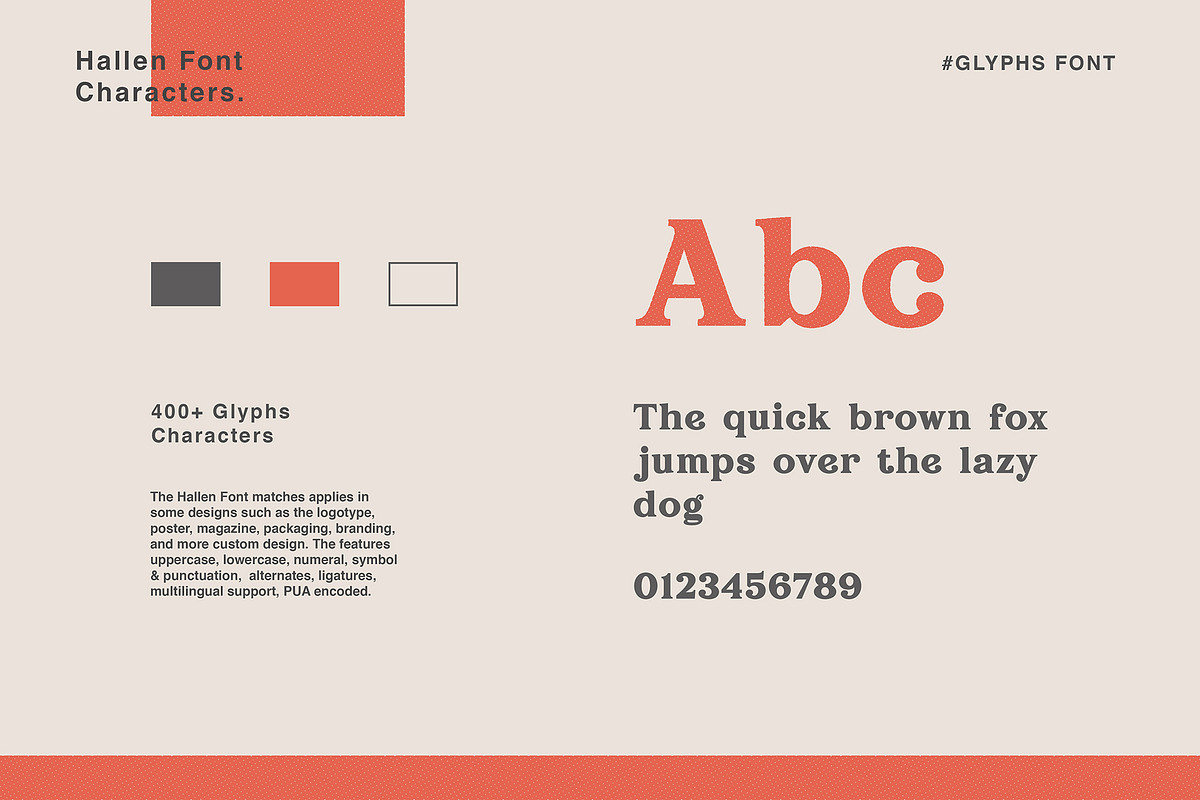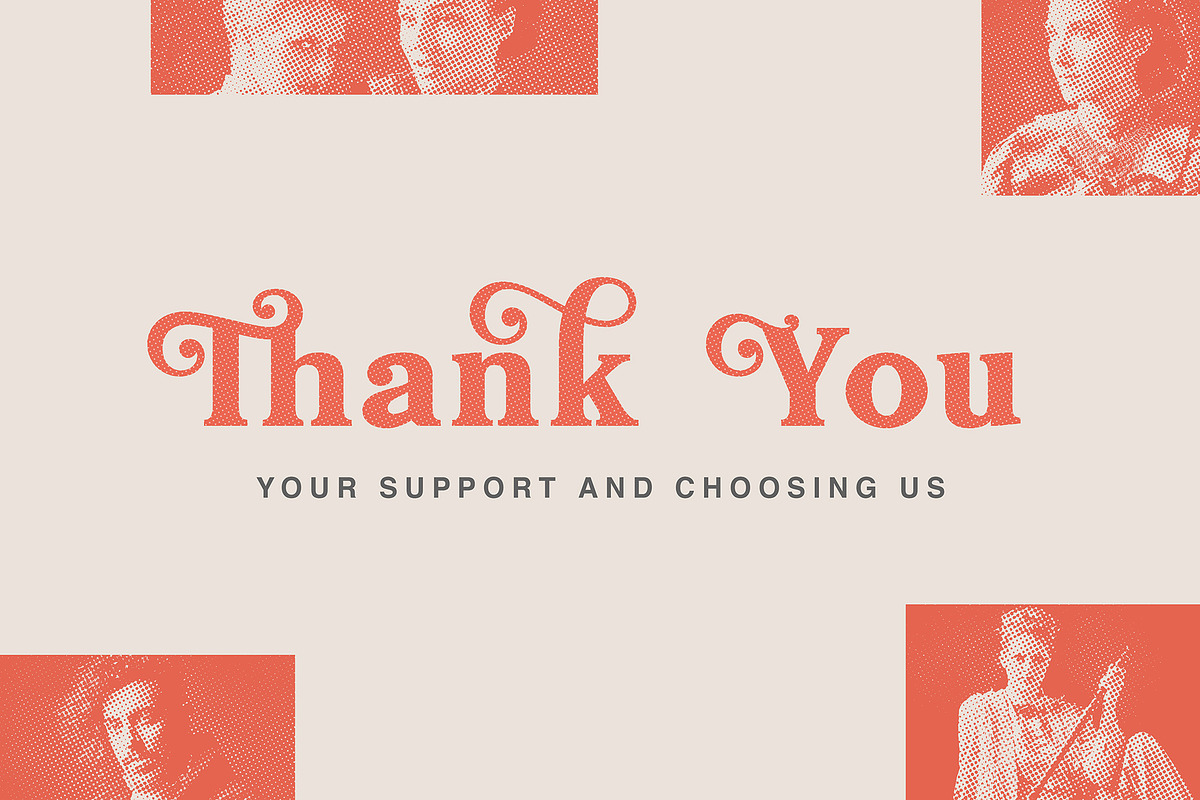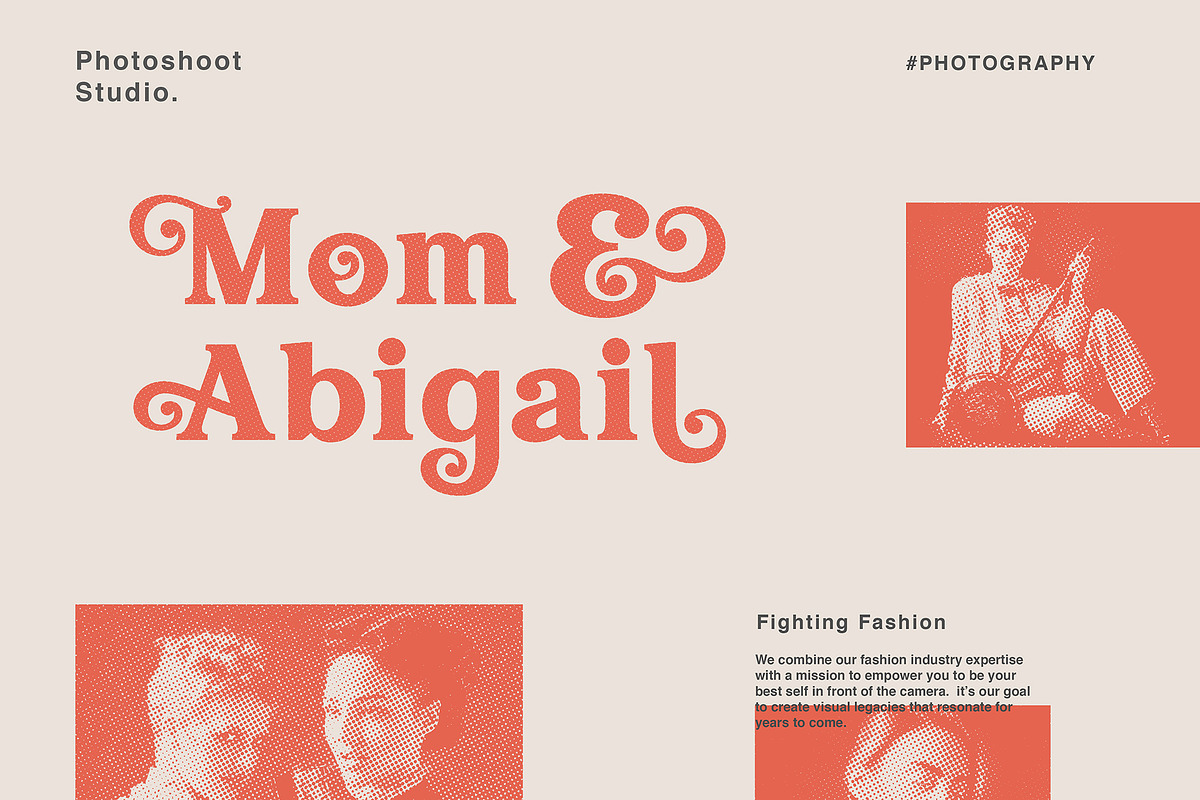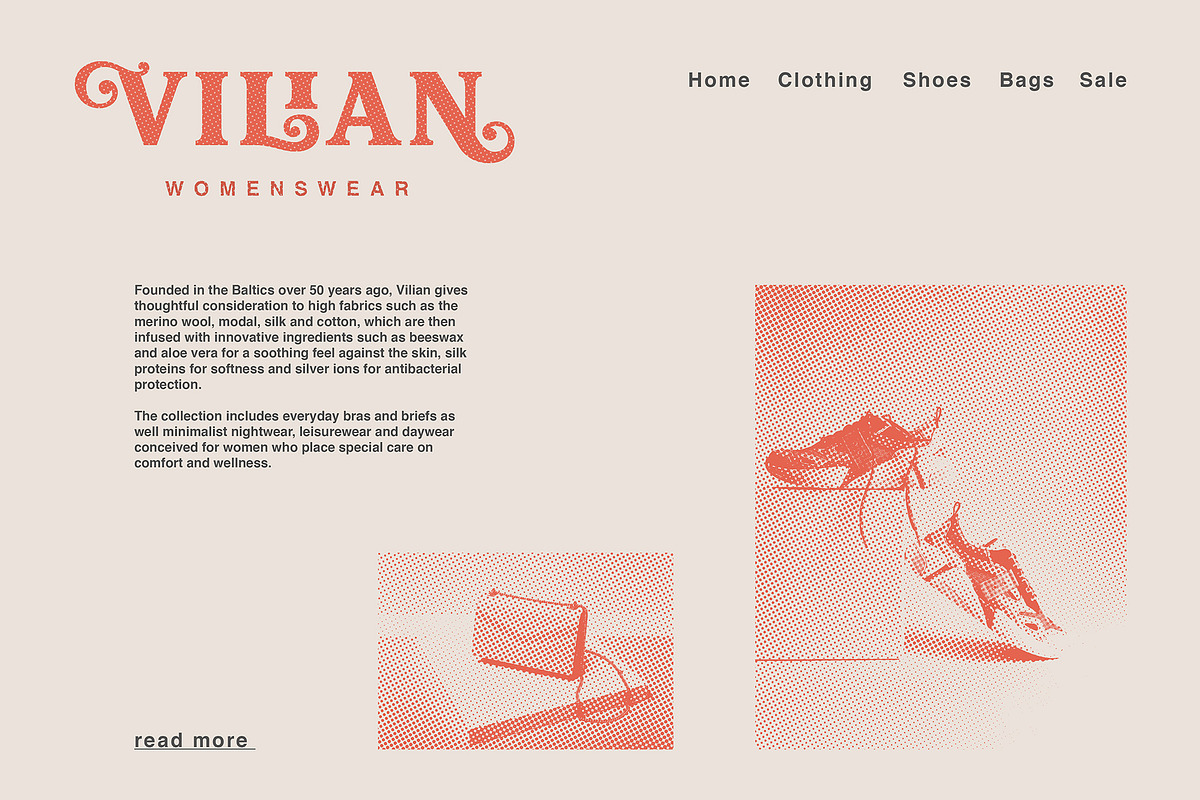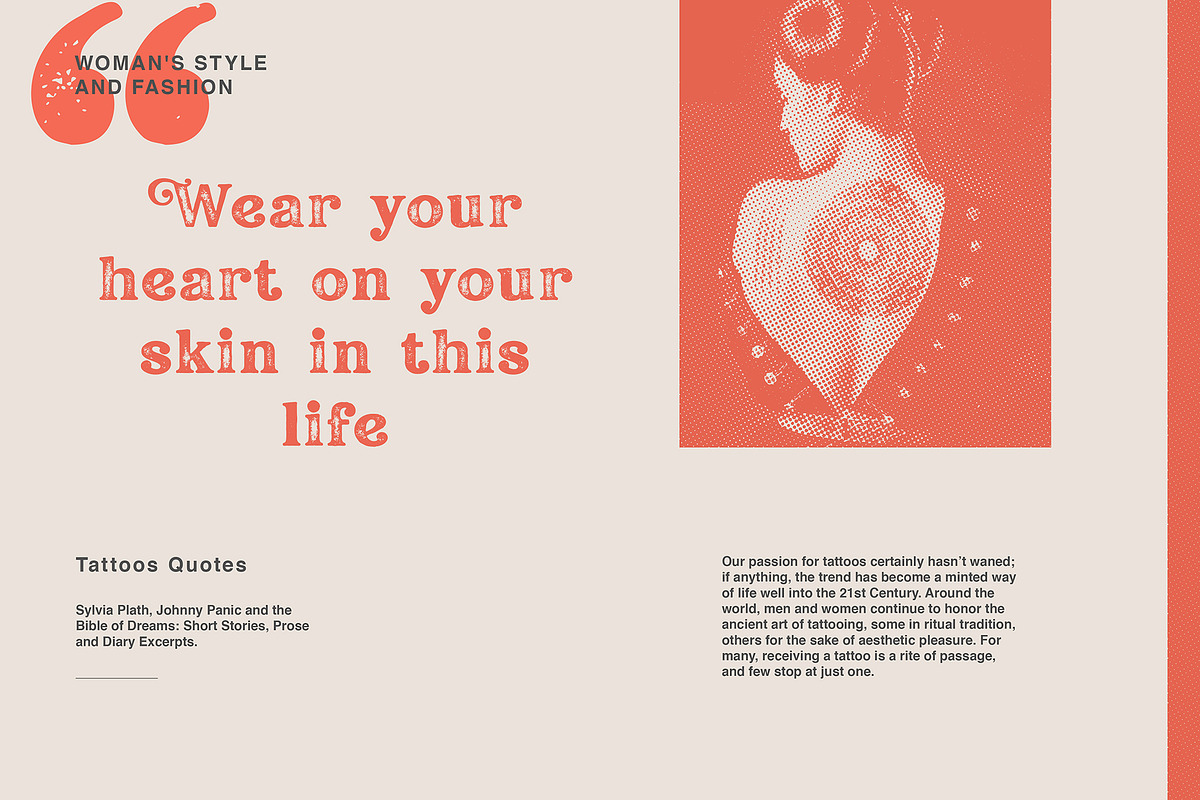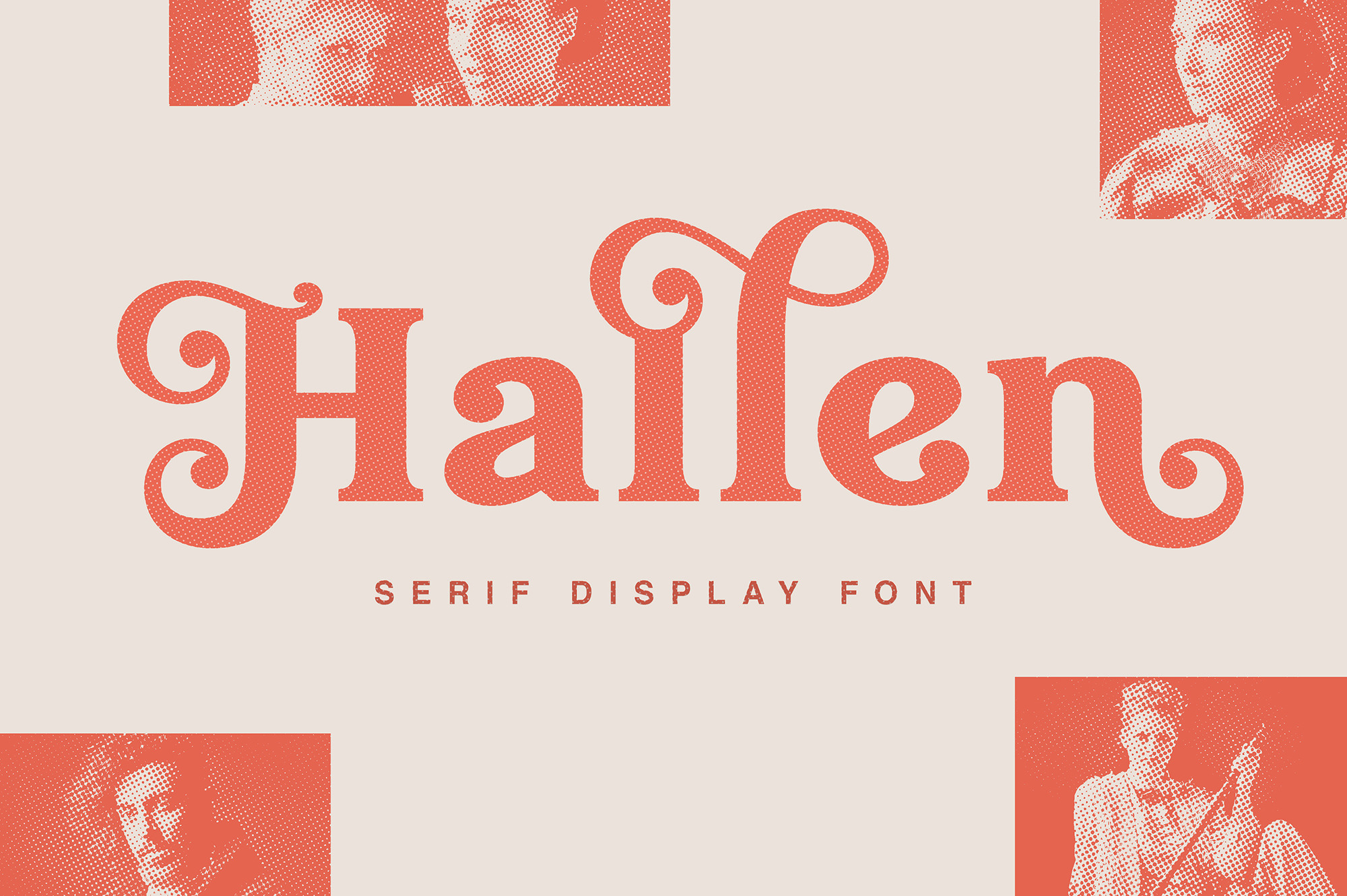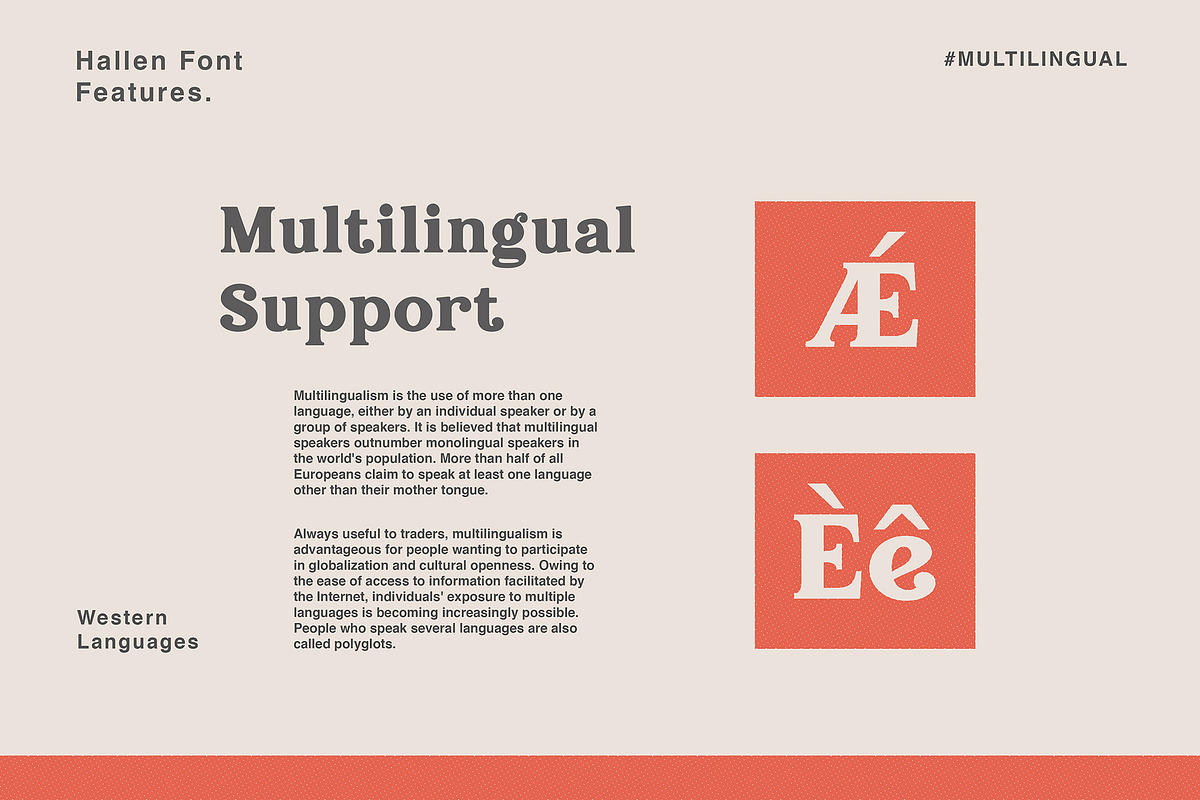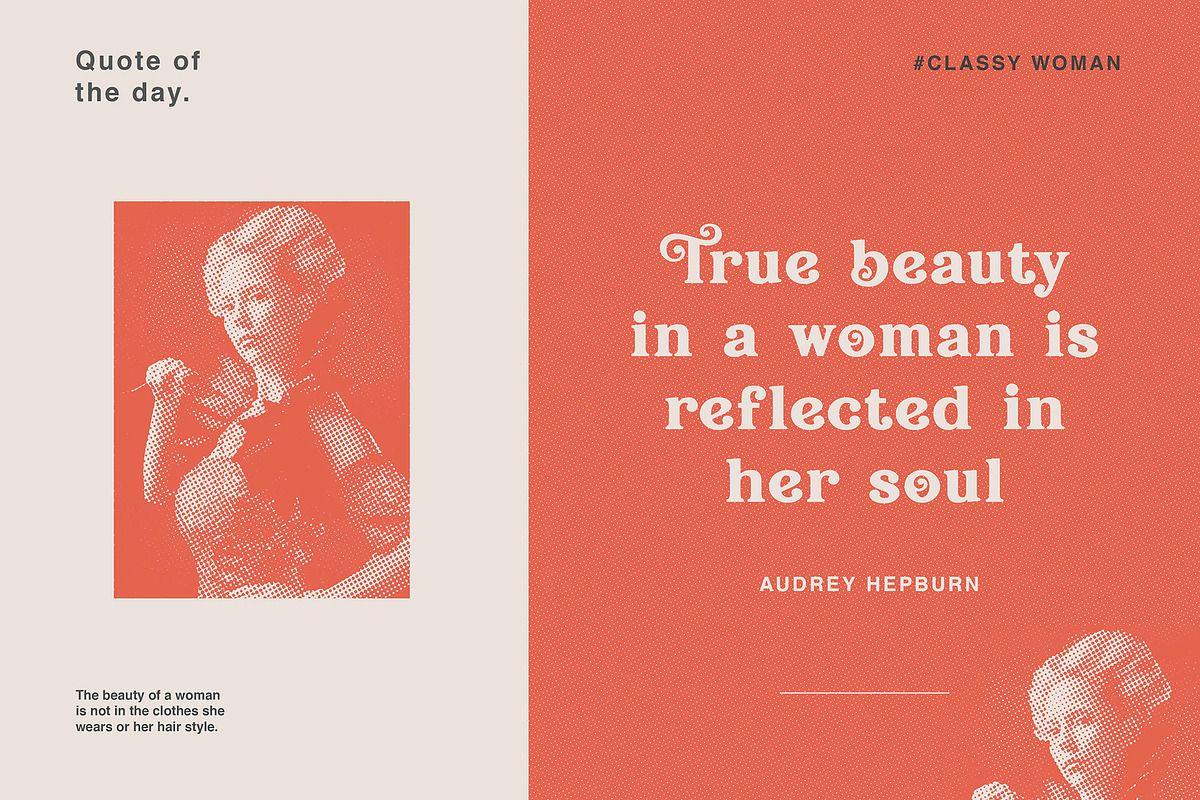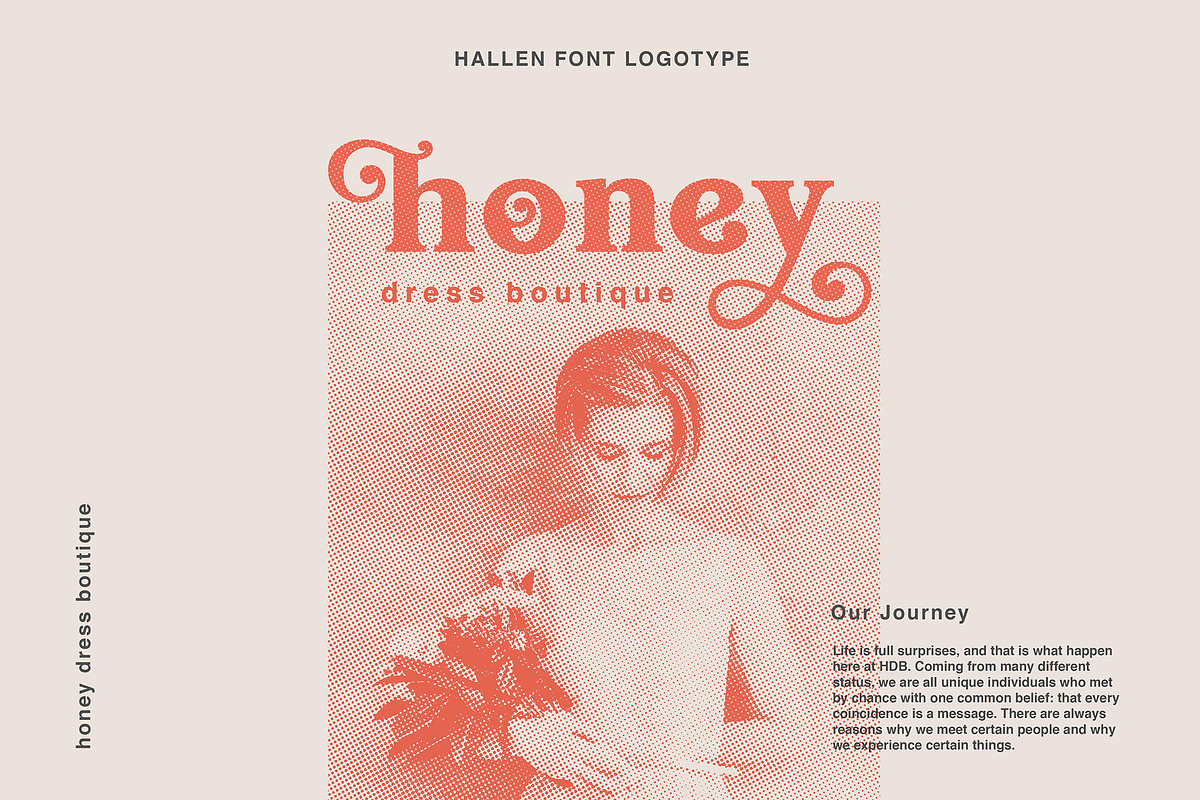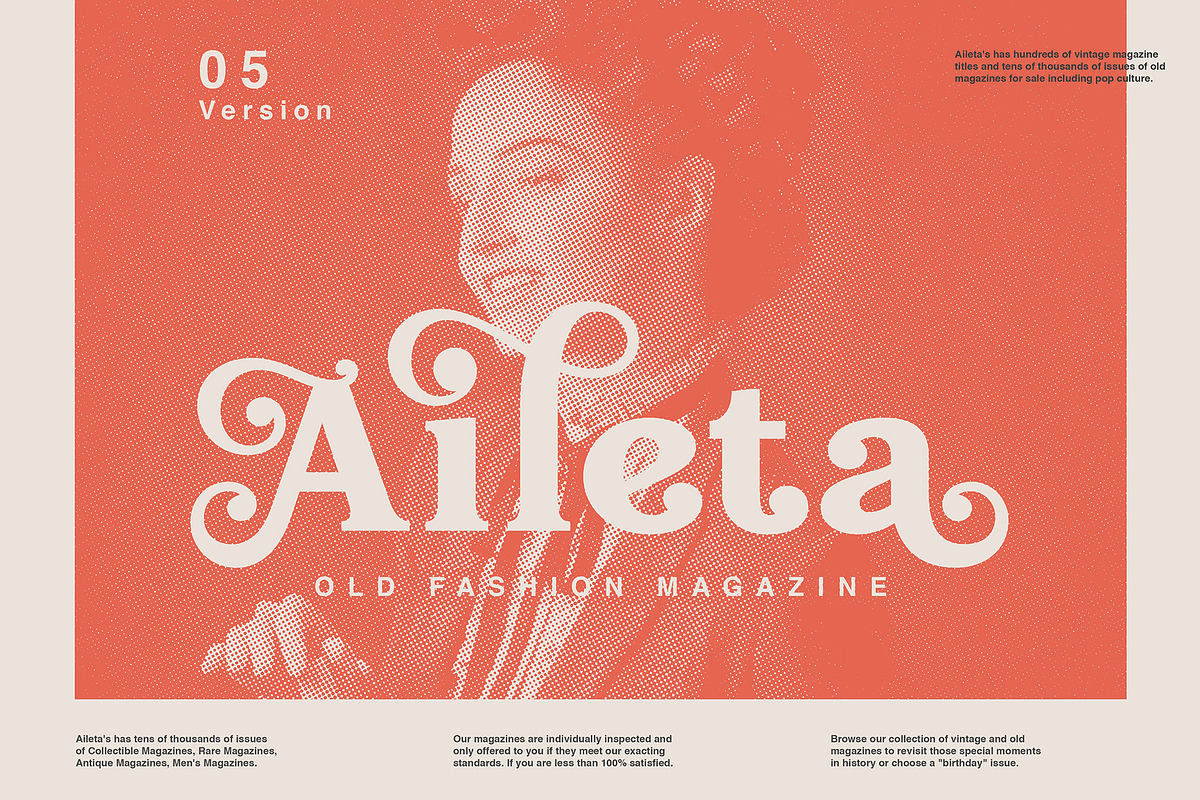
Hallen - Modern Classic Font
This font is called "Hallen" with modern classic themes, it represents a carefully serif display typeface. Hallen comes with unique swashes alternates and combines every character in good typography. Select regular and smooth style for modern theme, for classic theme you can select rough and texture style. You can type some words and then make yourself the best layout, it will look perfect for professional design taste. You also can use this font in some designs such as the logotype, magazine, poster, packaging, branding, website, quote, invitation and more custom design.
Hallen includes :
- 4 style typefaces (regular, smooth, rough, and texture)
- Uppercase, lowercase, numeral, punctuation & symbol
- Ligature and Alternates (ss01 - ss06)